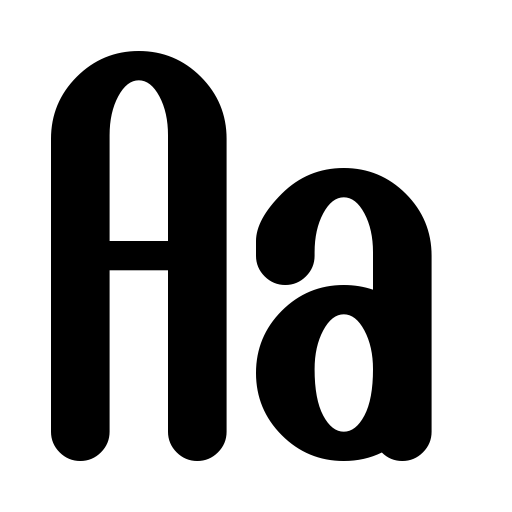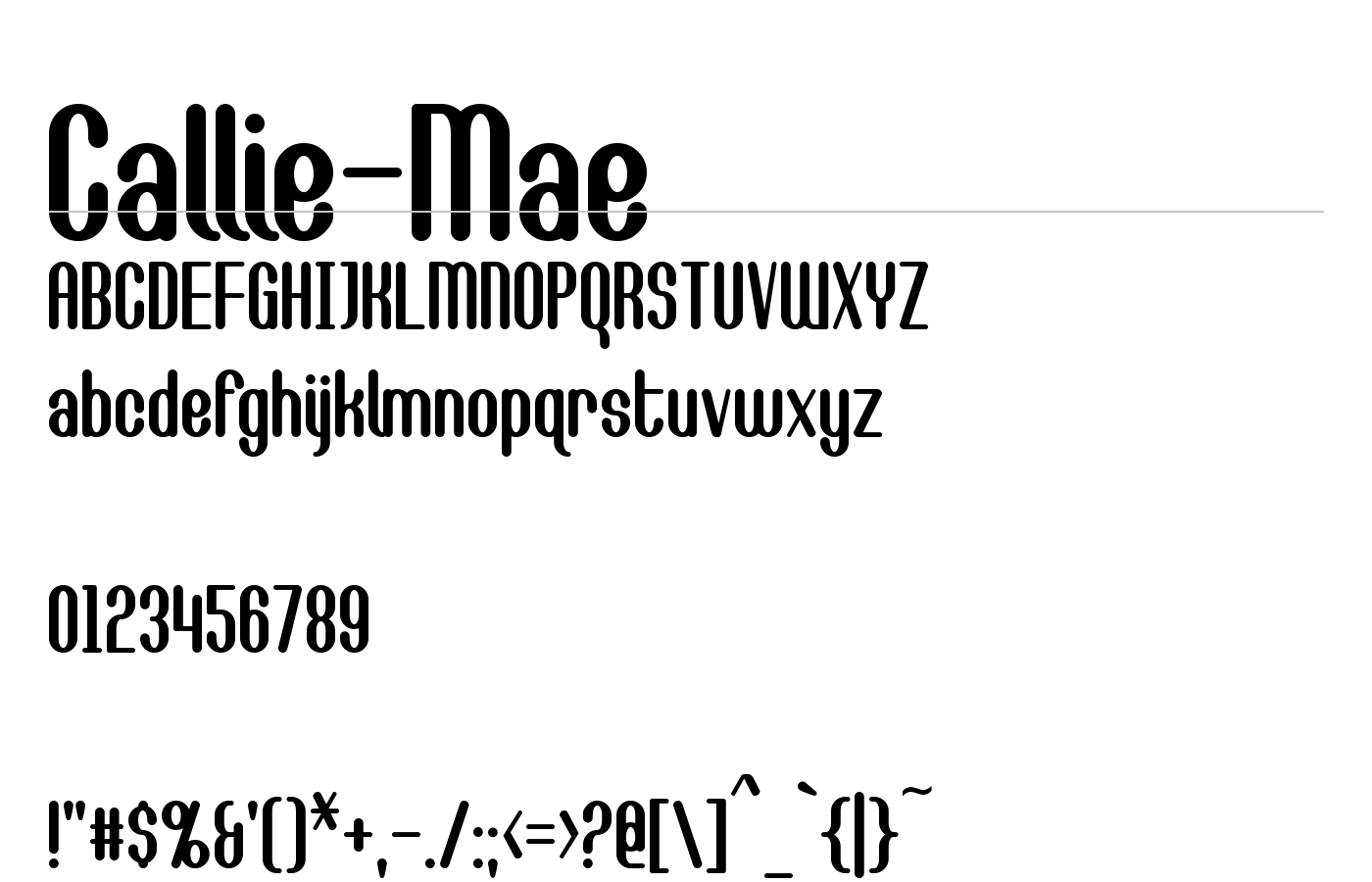
Callie-Mae is a condensed sans serif font with a tall, narrow structure and a charming, slightly rounded appearance. Its clean lines and subtle quirks give it a playful yet professional feel, making it perfect for headlines, branding, and editorial layouts where a unique but readable typeface is needed. This font works well for creative projects seeking a modern, friendly aesthetic with a hint of vintage character.
| Font family | Callie-Mae Font |
| Designer | Neale Davidson |